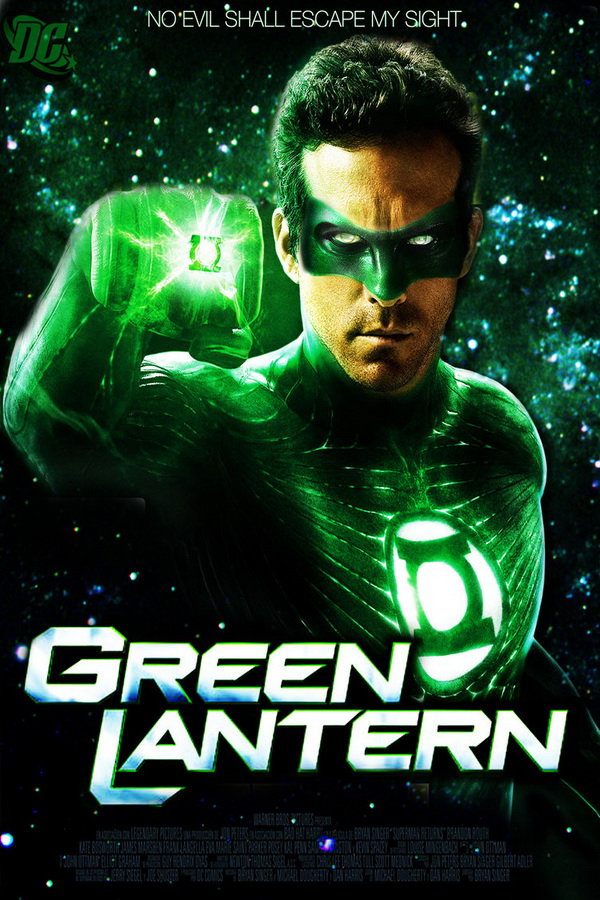
Fonts in UseGreen Lantern is a 2011 superhero film based on the DC Comics character of the same name. It follows the story of a test pilot who is granted a mystical green ring that gives him otherworldly powers and enlists him in an intergalactic police force.
The lettering used for the title resembles the Red Rocket font created by Iconian Fonts, which includes a comprehensive collection of uppercase and lowercase letters, along with accented letters and punctuation marks. The font can be downloaded at no cost from the Fonts Used Section.